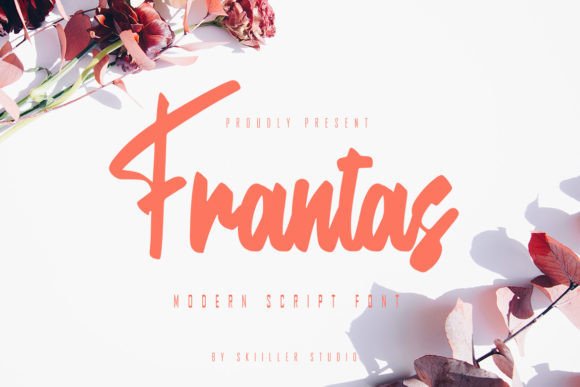
Welcome to the realm of Frantas Script, an exquisite brush text font that embodies the essence of elegance and creativity. Its strokes, crafted with meticulous care, create an alluring symphony of texture, brush marks, and imperfect perfection that leave a lasting impression.
Step into a world of captivating typography with Frantas Script, a font that is both captivating and timeless. Experience the beauty of its irregular baseline, a subtle dance of ascenders and descenders that adds a touch of playfulness to your designs. With each character meticulously crafted to reflect the authenticity of hand-painted lettering, Frantas Script elevates your designs to a realm of sophistication and charm.
Whether you're crafting magazine layouts that demand attention, designing logos that exude personality, or creating book covers that whisper tales of adventure, Frantas Script is your perfect companion. Its versatility knows no bounds, enchanting quotes with a touch of whimsy, titles with a hint of drama, and posters with a burst of artistic flair.
Unleash the boundless potential of Frantas Script and let your imagination run wild. Dip your creative brush into its palette of possibilities and watch as your designs bloom with elegance, originality, and an enchanting allure that will capture hearts and minds.
So, seize this chance to embrace the artistry of Frantas Script, a font that transcends the ordinary and invites you to explore the extraordinary. Let your creativity flourish as you transform words into works of art and embark on a typographic journey that will leave a lasting legacy.